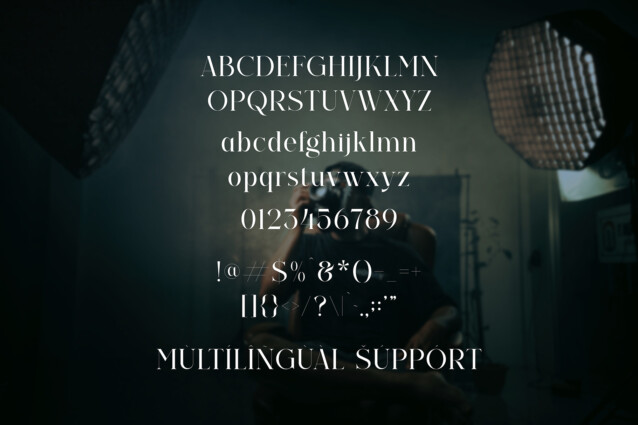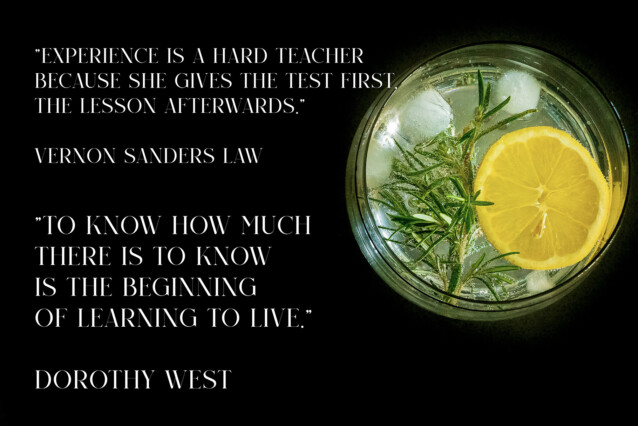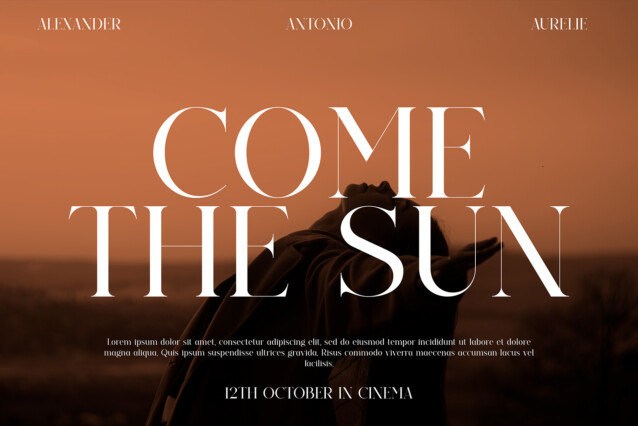
Emmeline Font
Emmeline Font is a simple and serif font. So perfect for you who needs a typeface for logo designs, magazine, social media, brochure, and many more.